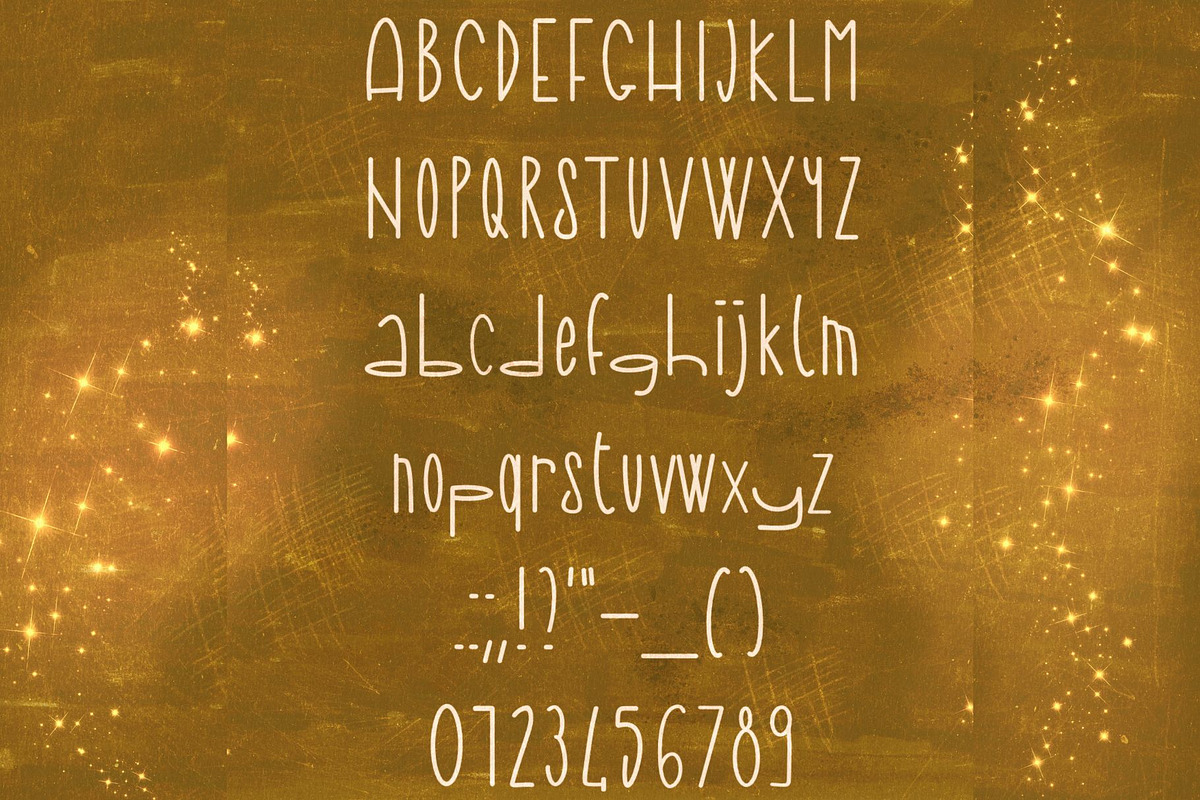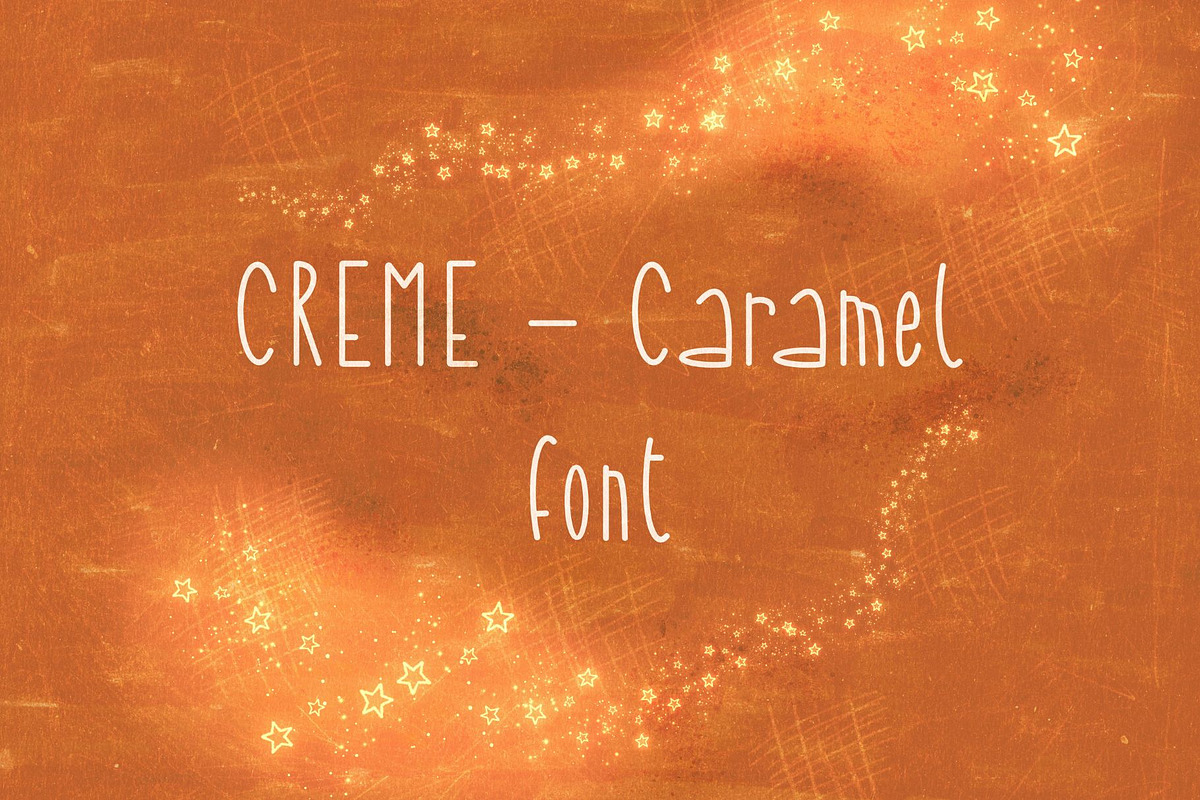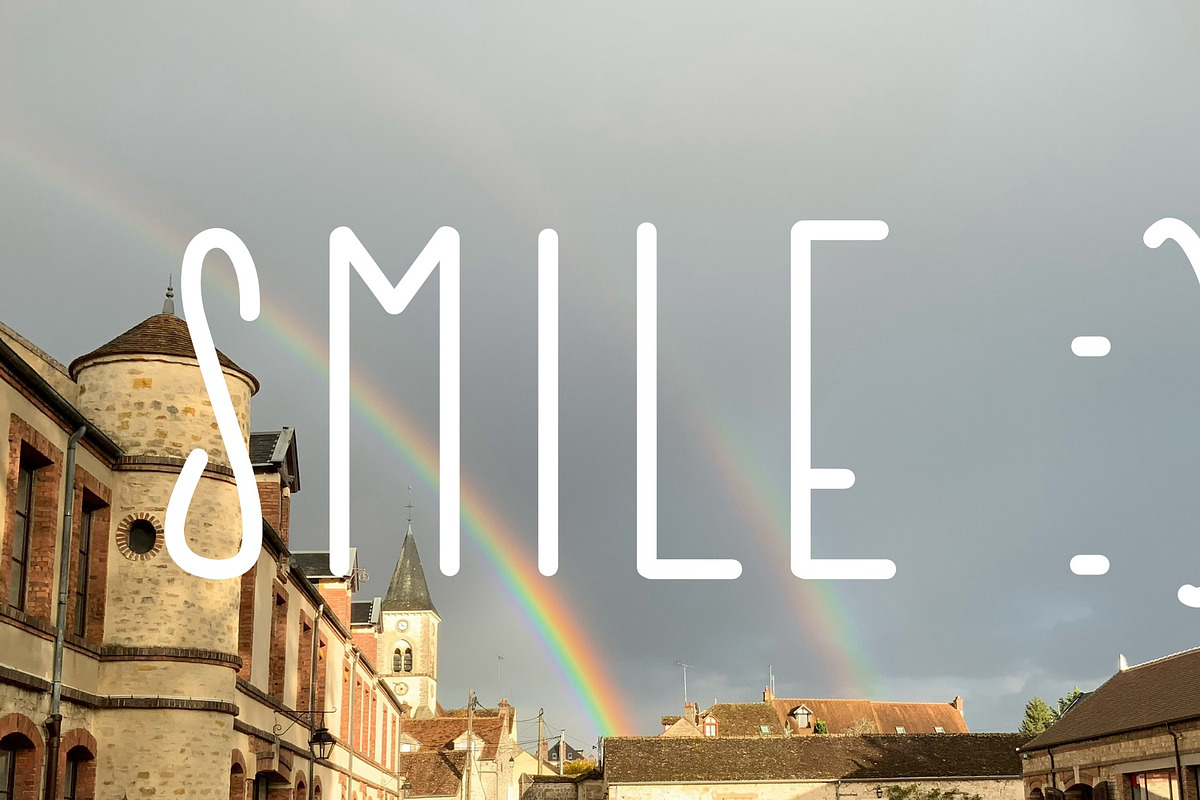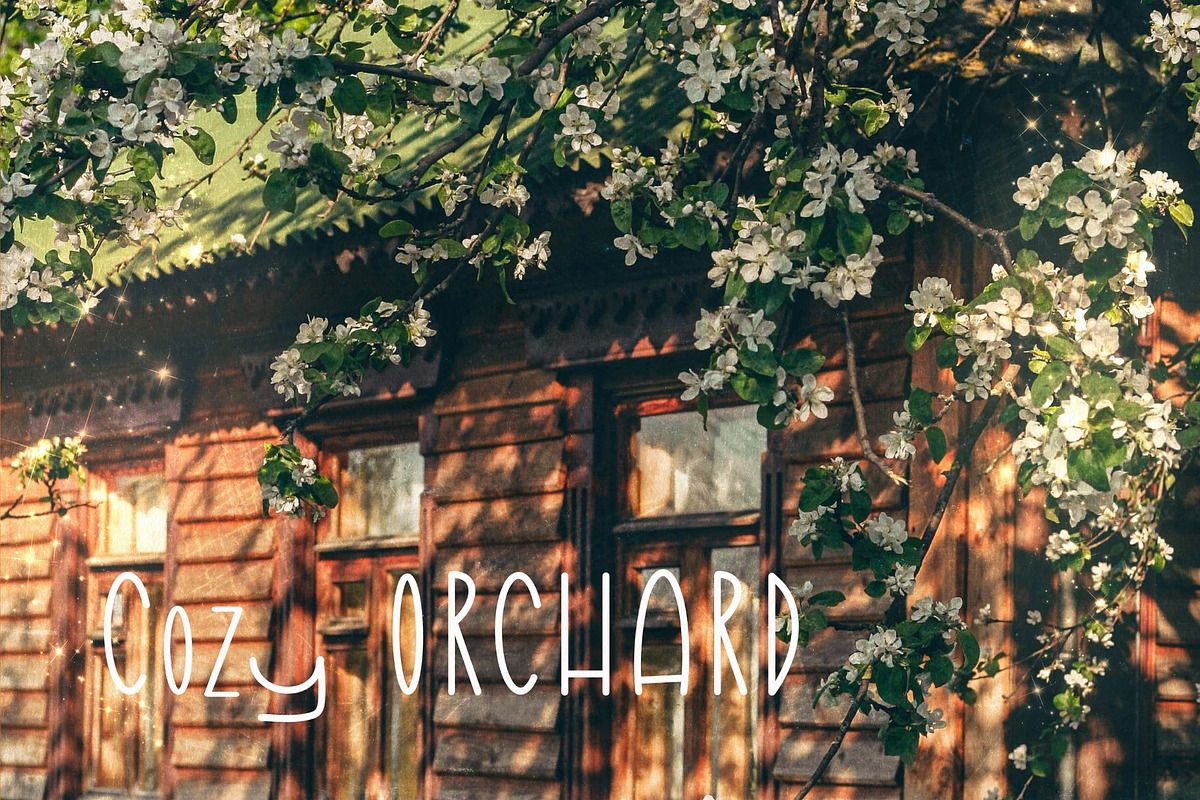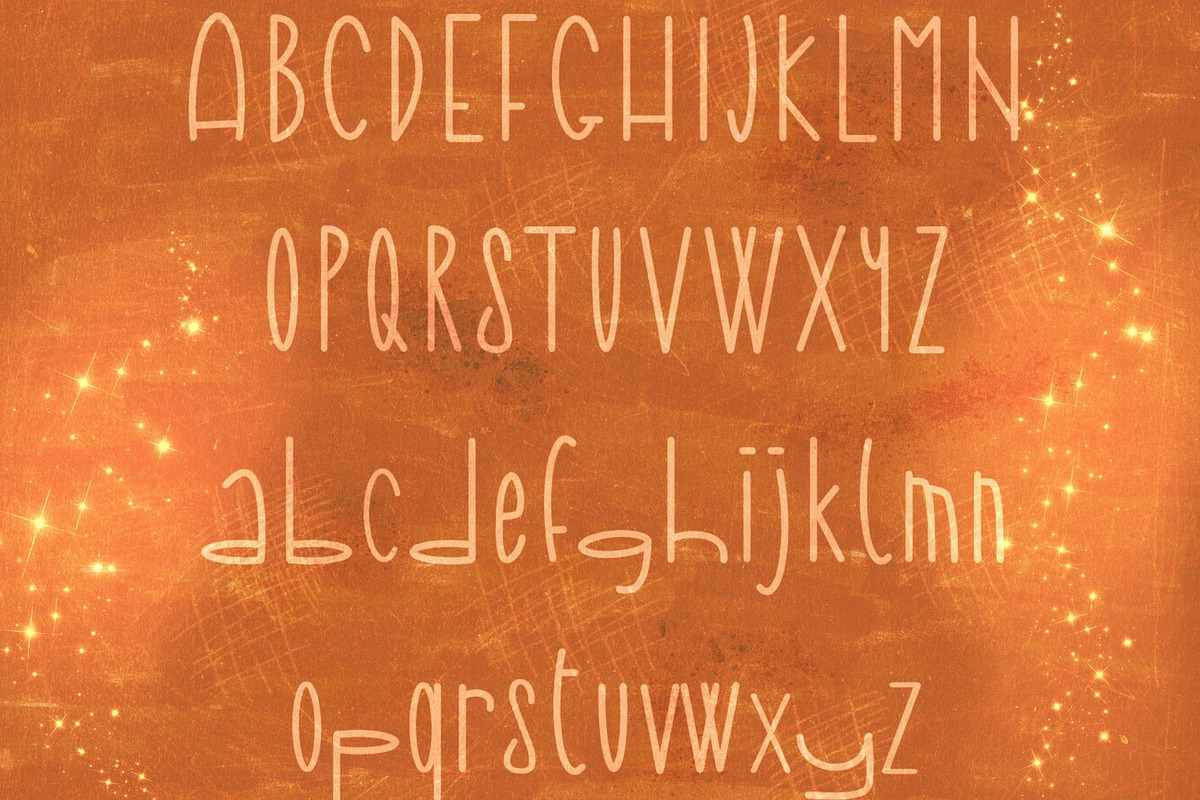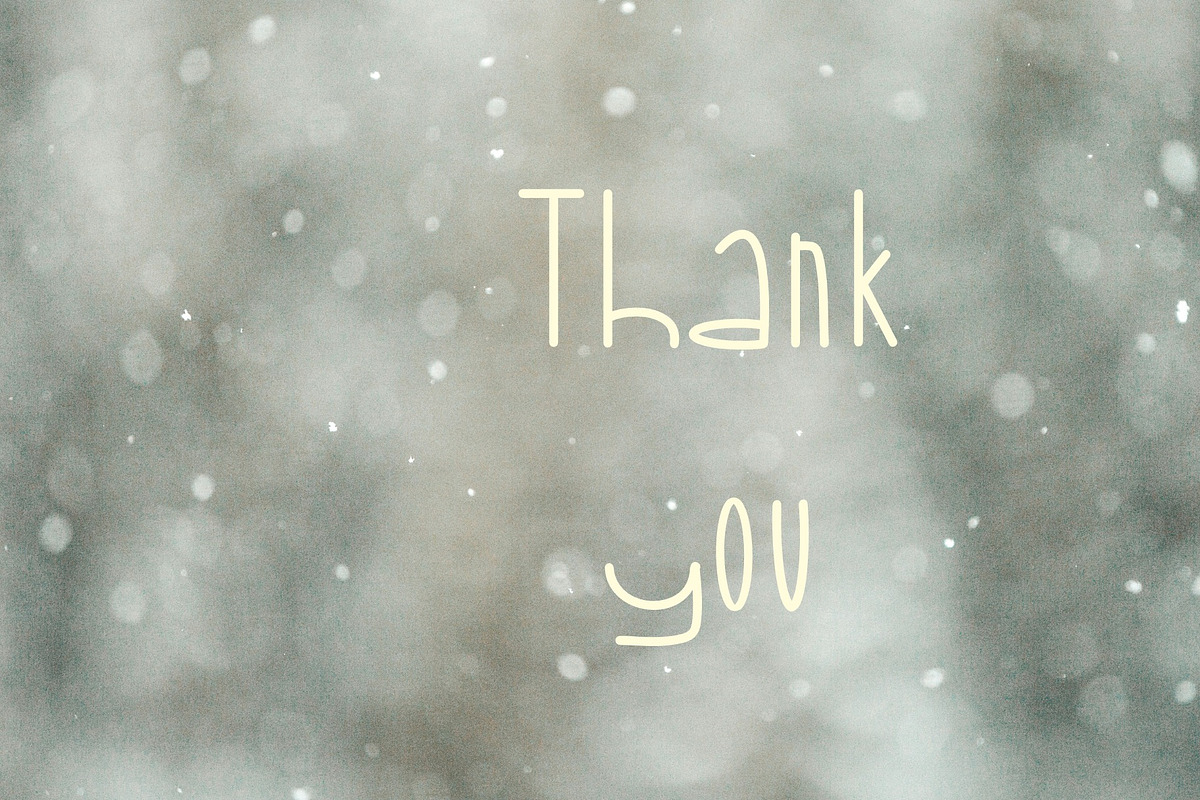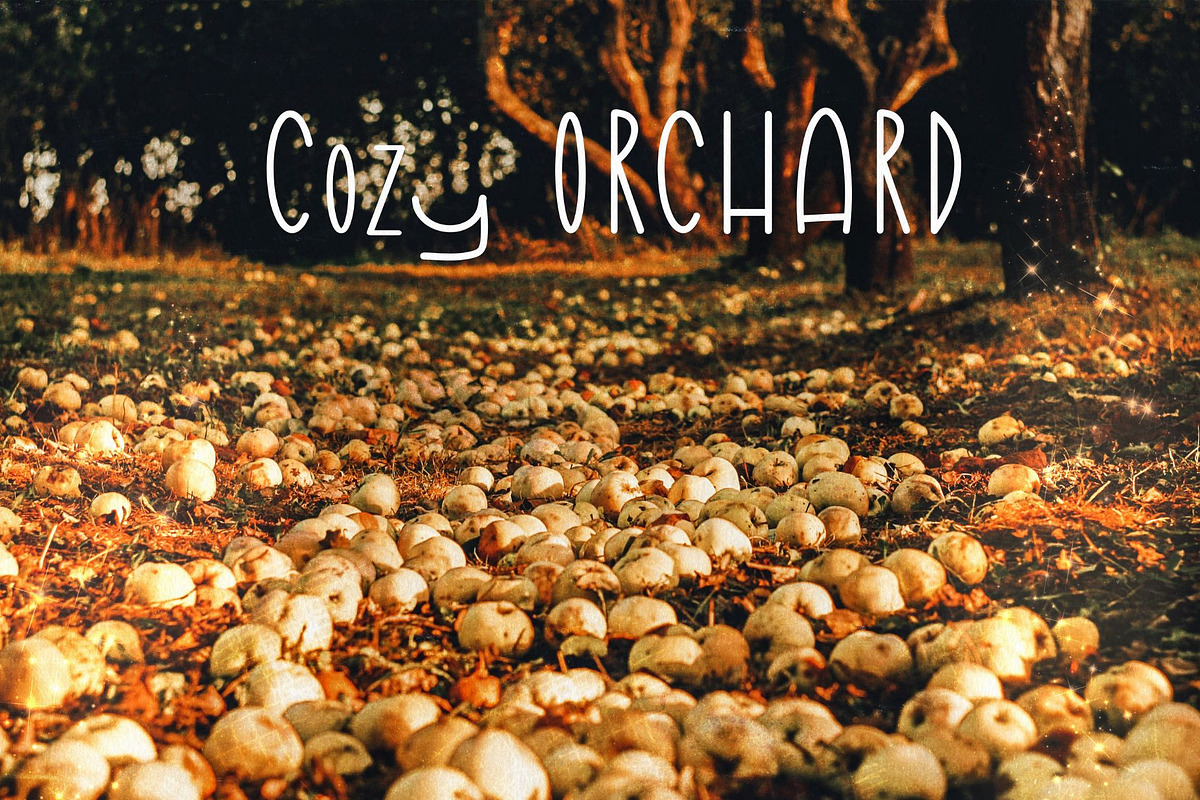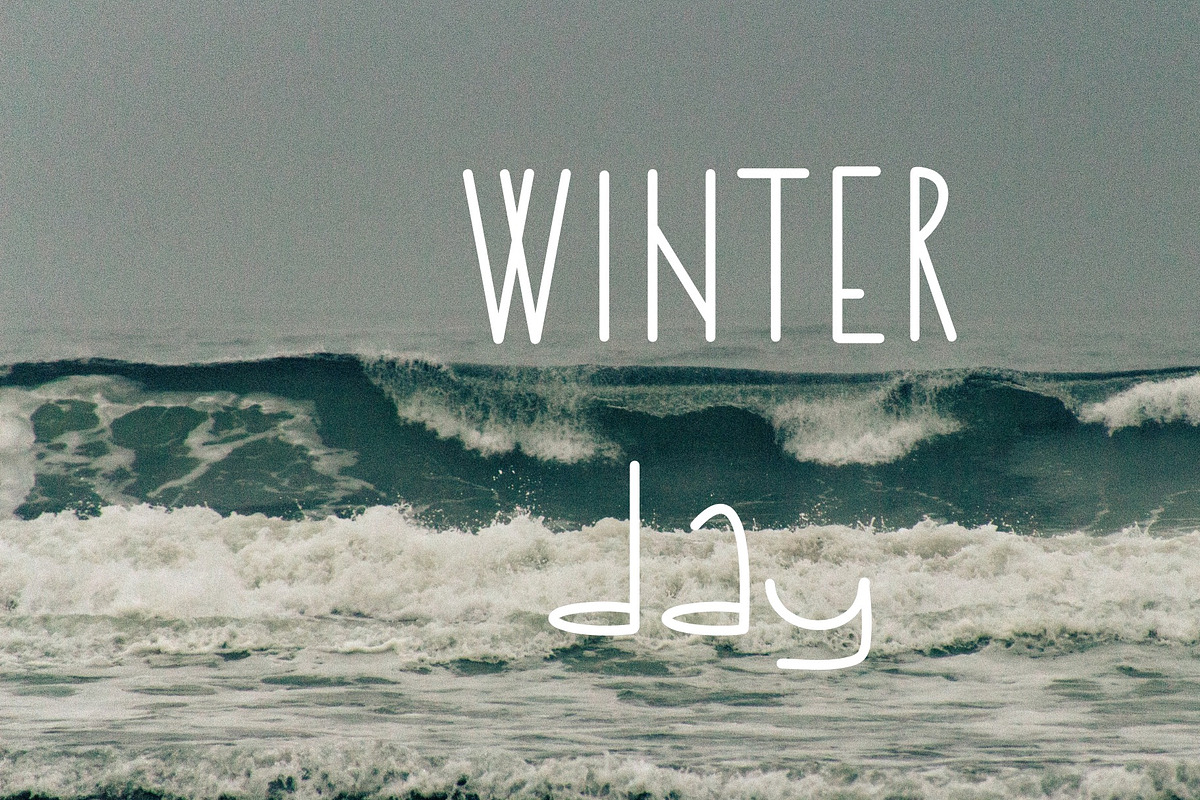
Creme Caramel Handwritten font
Introducing "Creme Caramel Handwritten Font" – a delightful and cozy display font that exudes warmth and charm. With its handwritten style, this font adds a personal touch to any project, whether it's a greeting card, invitation, or branding design. Let Creme Caramel bring a sense of comfort and nostalgia to your creations, inviting your audience to savor every moment.